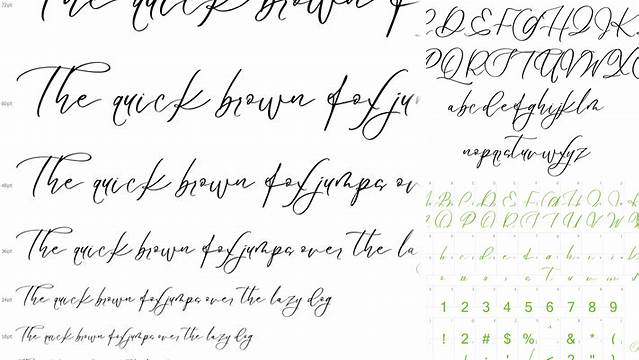
Hey guys! Are you on the hunt for that perfect script font to add a touch of elegance and flair to your projects? Look no further! In this comprehensive guide, we're diving deep into the world of Le Jour script font free download. We'll explore what makes this font so special, where you can find it, how to use it effectively, and even some creative ideas to spark your imagination. Whether you're a seasoned designer or just starting out, this article is your ultimate resource for all things Le Jour. So, grab a cup of coffee, get comfy, and let's get started!
What is Le Jour Script Font?
Before we jump into the nitty-gritty of downloading and using this fantastic font, let's first understand what Le Jour script font actually is. In essence, Le Jour script is an exquisite typeface that falls under the category of script fonts. Script fonts, as you may know, are designed to mimic the flowing strokes of handwriting, giving them a personal and often elegant feel. Le Jour takes this concept and elevates it with its unique characteristics. This font is characterized by its graceful curves, smooth lines, and a touch of vintage charm. It's like the font equivalent of a handwritten letter from a dear friend – warm, inviting, and full of character. What sets Le Jour apart is its versatility. While it exudes sophistication, it's also approachable and friendly, making it suitable for a wide range of applications. Think wedding invitations, logos, branding materials, social media graphics, and so much more. The beauty of Le Jour lies in its ability to add a touch of class without feeling overly formal or stuffy. It strikes that perfect balance between elegance and readability, making it a favorite among designers and creatives alike. The attention to detail in each letterform is evident, showcasing the skill and artistry of the font's creator. Each character flows seamlessly into the next, creating a harmonious visual rhythm that's pleasing to the eye. This makes Le Jour not just a font, but a work of art in itself. The font’s overall aesthetic can be described as timeless and classic, yet with a modern twist. It doesn't feel dated or trendy, which is crucial for projects that need to stand the test of time. Whether you're designing a logo for a new business or creating a heartfelt greeting card, Le Jour adds a touch of sophistication that elevates the final product. In terms of technical aspects, Le Jour often includes a variety of stylistic alternates, ligatures, and swashes. These extra features allow you to customize the font even further, adding unique flourishes and details to your text. For example, you might use a swash to add a decorative tail to the final letter of a word or choose an alternate letterform to create a slightly different feel. These options give you a high level of control over the typography, ensuring that you can achieve the exact look you're aiming for. When you choose Le Jour, you're not just selecting a font; you're choosing a tool that can help you tell a story, convey a mood, and connect with your audience on a deeper level. Its elegant script style makes it perfect for projects that require a touch of humanity and authenticity. So, if you're looking for a font that's both beautiful and versatile, Le Jour might just be the perfect choice for your next project. It is this versatility and elegance that has made the search for “Le Jour script font free download” so popular among designers and creatives worldwide.
Creative Ways to Use Le Jour Script Font
Okay, guys, now that you've got your hands on Le Jour script font free download and installed it, let's talk about the fun part: putting it to use! Le Jour is a versatile font that can shine in a variety of projects, but it's all about knowing how to use it effectively. Let's brainstorm some creative ways to incorporate Le Jour into your designs. First and foremost, Le Jour is an excellent choice for wedding invitations and stationery. Its elegant and flowing script style adds a touch of romance and sophistication, making it perfect for setting the tone for a special occasion. Imagine using Le Jour for the names of the bride and groom, the date and time of the ceremony, or even for a heartfelt message on a thank-you card. Pair it with a simple sans-serif font for the body text to create a balanced and visually appealing design. Another fantastic application for Le Jour is in logo design and branding. A script font can give your brand a unique and memorable identity, especially if you're aiming for a more personal and handcrafted feel. Le Jour can work well for businesses in various industries, such as beauty, fashion, food, or even creative services. Think about using it for the main logo, a tagline, or even for accent text on your website or marketing materials. When using Le Jour in branding, make sure it aligns with your brand's overall personality and message. It's important to create a cohesive visual identity that resonates with your target audience. Social media is another arena where Le Jour can truly shine. In today's digital landscape, visual content is king, and using eye-catching fonts can help you stand out from the crowd. Le Jour can add a touch of elegance to your social media graphics, quotes, and captions. Consider using it for your profile name, headers, or even for creating visually appealing quote images. Just remember to use it sparingly and pair it with other fonts that complement its style. Overusing a script font can make your design feel cluttered or overwhelming. Le Jour also lends itself beautifully to greeting cards and personalized notes. Whether you're creating a birthday card, a thank-you note, or a holiday greeting, Le Jour can add a personal touch that makes your message feel extra special. Imagine writing a heartfelt message in Le Jour script – it's sure to make the recipient feel loved and appreciated. You can even use it for addressing envelopes to add a touch of elegance to your snail mail. For those of you who are into blogging or content creation, Le Jour can be a fantastic way to add visual interest to your blog posts and articles. Use it for your headlines, subheadings, or even for creating custom graphics for your blog. A well-chosen font can significantly improve the readability and visual appeal of your content, making it more engaging for your readers. When using Le Jour in longer texts, it's important to ensure that it remains legible. Script fonts can sometimes be challenging to read in large blocks of text, so use them sparingly and pair them with more legible fonts for the main body of your content. If you're a fan of DIY projects and crafts, Le Jour can be a wonderful addition to your toolkit. Use it for creating custom labels, signs, or even for personalizing gifts. Imagine using Le Jour to create a beautiful sign for your home, a custom label for a homemade product, or a personalized gift for a friend or family member. The possibilities are endless! One thing to keep in mind when using Le Jour (or any script font, for that matter) is to pay attention to kerning and spacing. Kerning refers to the space between individual letters, and adjusting it can significantly improve the readability and visual appeal of your text. Script fonts often have complex letterforms that require careful kerning to ensure that they flow smoothly and look balanced. Most design software allows you to adjust kerning manually, so take the time to fine-tune the spacing of your letters for the best results. Another tip is to experiment with different font sizes and weights. Le Jour might look stunning in a large headline, but it might also work beautifully in a smaller size for body text or captions. Play around with different sizes and weights to see what works best for your design. In conclusion, Le Jour script font is a versatile and elegant typeface that can add a touch of class to a wide range of projects. Whether you're designing wedding invitations, logos, social media graphics, or DIY crafts, Le Jour can help you create stunning visuals that stand out. Remember to use it thoughtfully, pair it with other fonts that complement its style, and always pay attention to kerning and spacing. With a little creativity and practice, you'll be able to unleash the full potential of Le Jour and create designs that are both beautiful and effective.